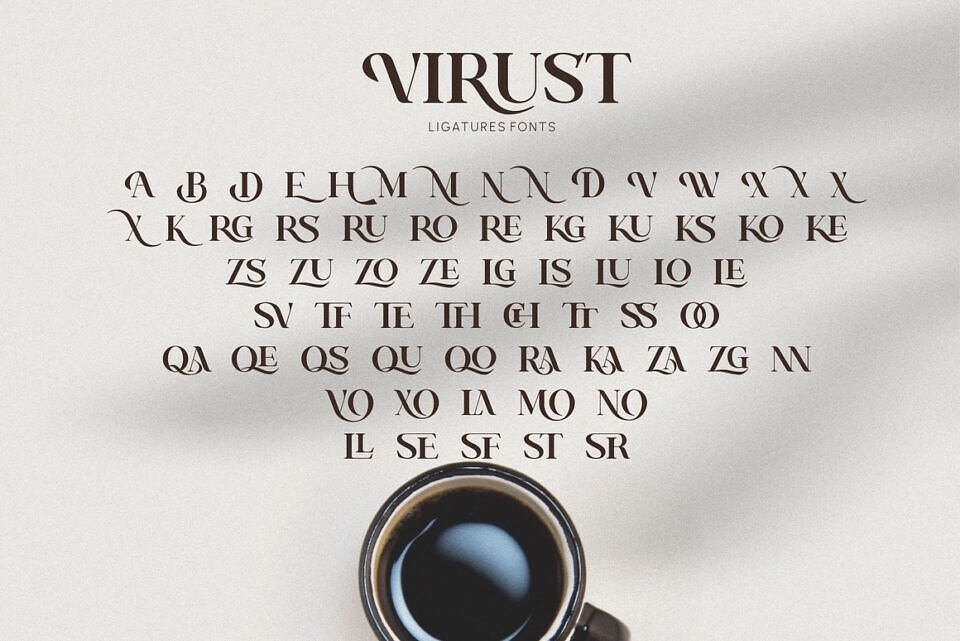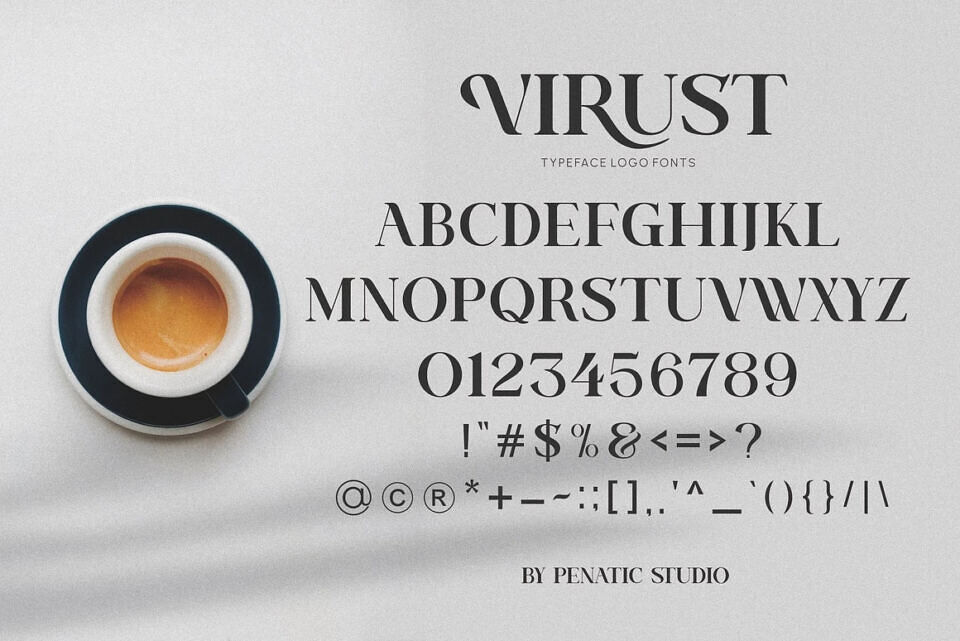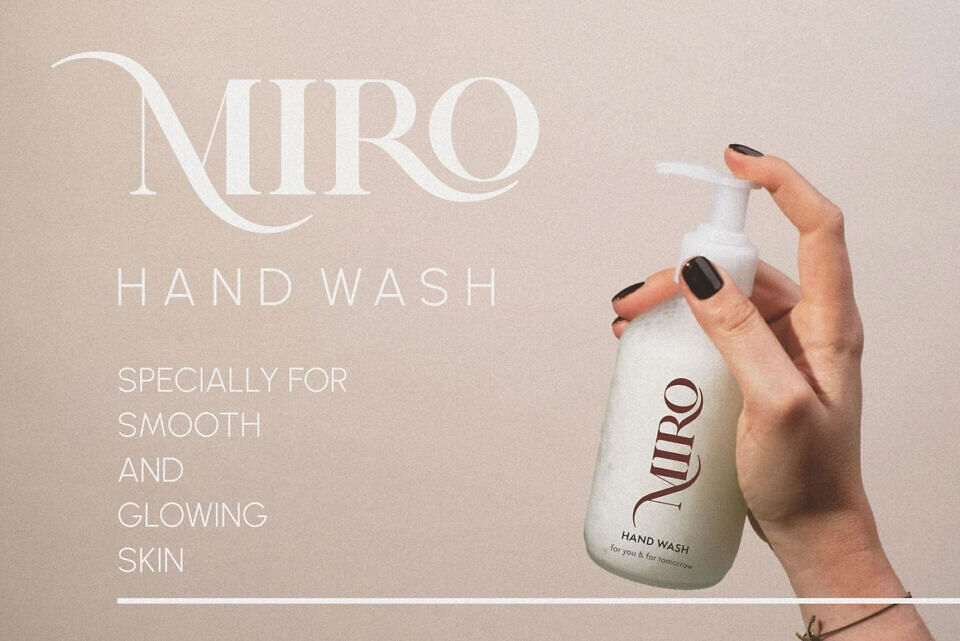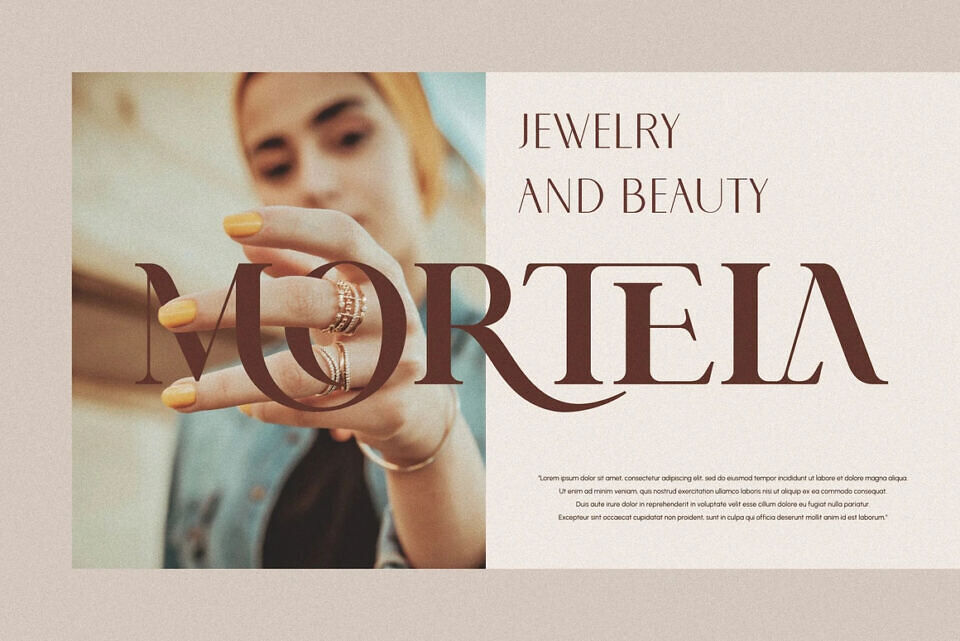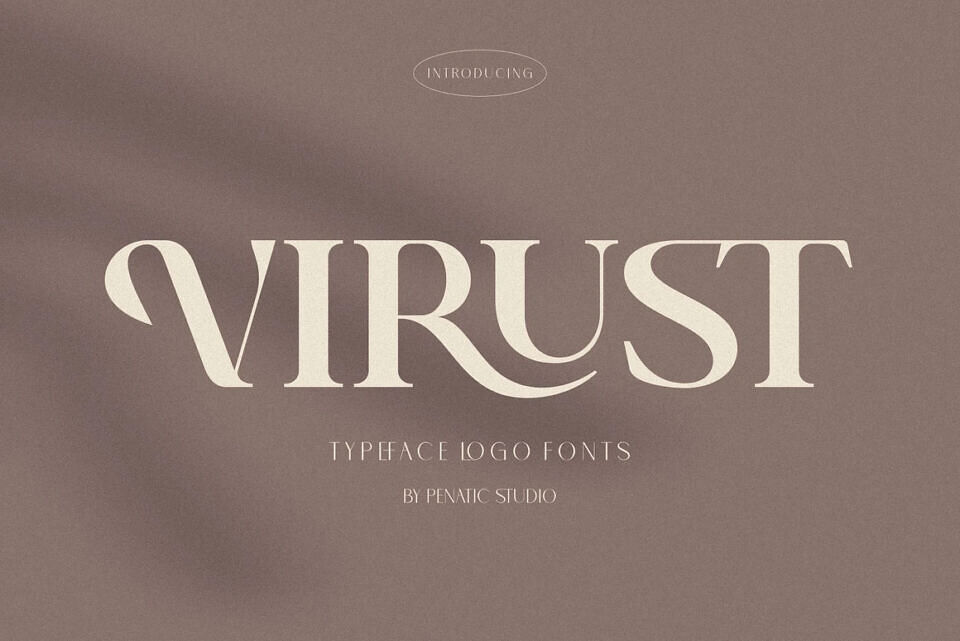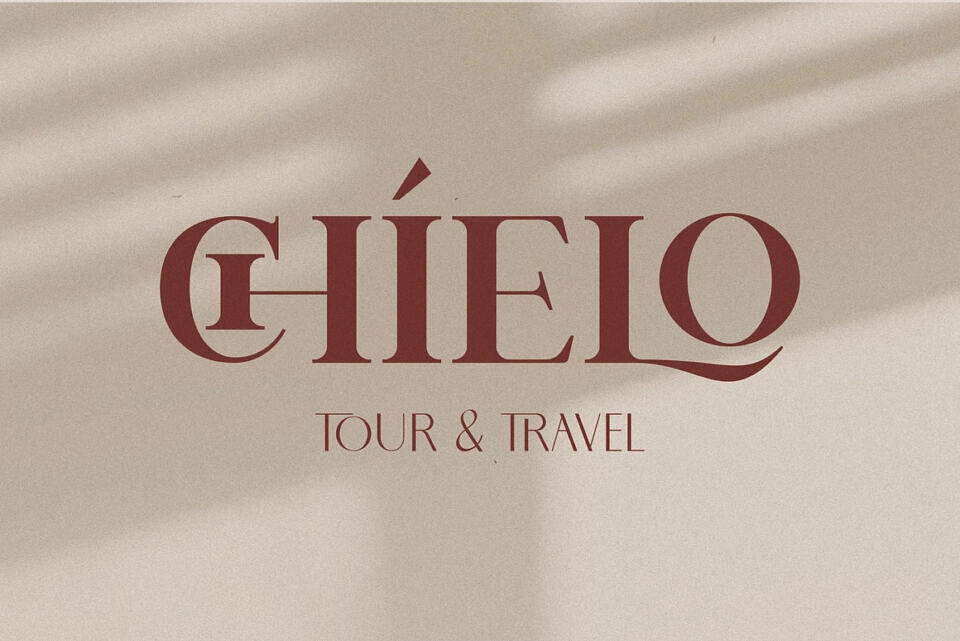
Virust Font
VIRUST is a great choice for logos and branding. Its smooth, thick design gives it a strong, independent look. With many alternative characters and ligatures, it offers versatility to enhance your brand’s unique identity.
Designed by: Penatic Studio